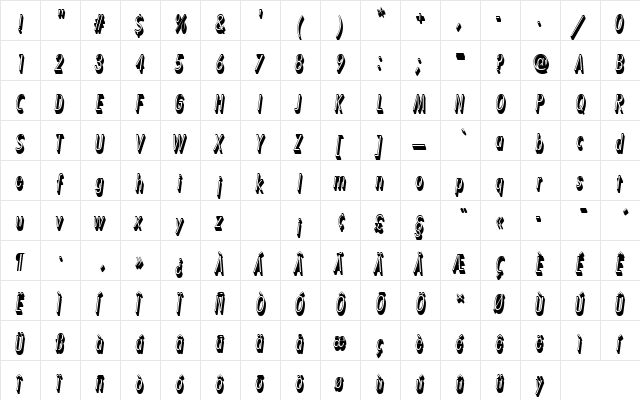
FuturaTLigConOblSh1 Regular Font Preview
FuturaTLigConOblSh1 Regular
Design Context for FuturaTLigConOblSh1 Typeface
FuturaTLigConOblSh1 channels digital-age aesthetics through its sharp, structured letterforms — ideal for brands that want to signal innovation.